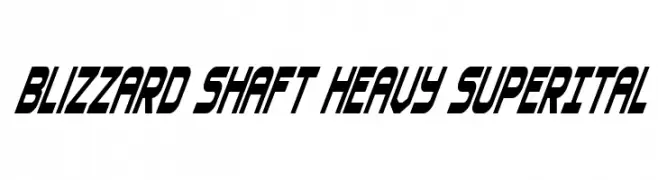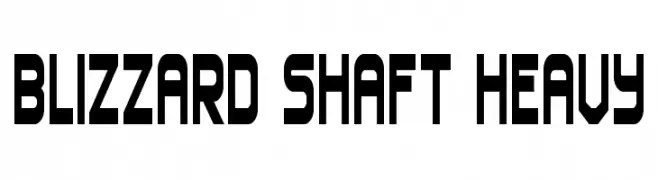
A bold, modern sans-serif font with clean lines and strong presence.
A bold, angular font with sharp edges and a dynamic, energetic style.
A bold, geometric font with strong, angular lines and a modern aesthetic.
A bold, slanted font with a dynamic and modern style.